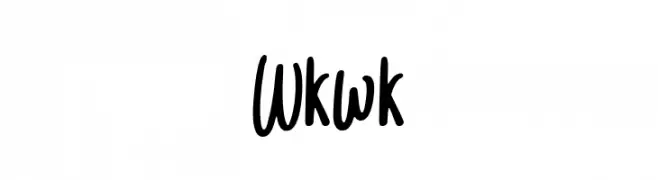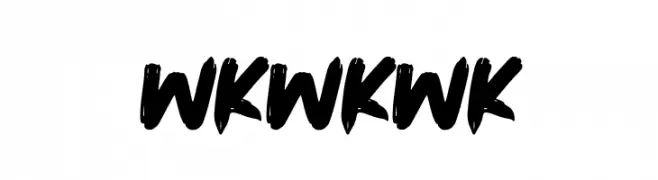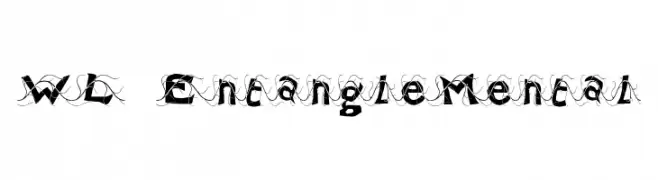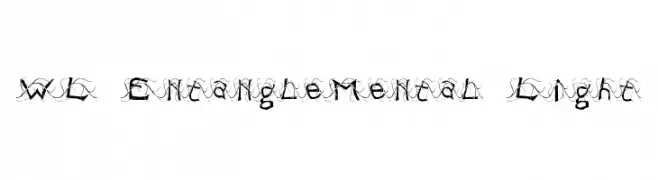
A decorative font with a whimsical and classic calligraphic style.
A playful, handwritten font with bold, rounded strokes and a casual style.
A bold, brush-style font with dynamic, hand-painted strokes.
A bold, angular font with a dynamic and edgy geometric design.
A bold, angular font with sharp, geometric edges and a dynamic appearance.
An artistic font with swirling, entangled lines creating a whimsical and decorative style.
An intricate, decorative font with swirling embellishments and artistic flair.
A bold, decorative font with butterfly motifs in uppercase and numbers.
Intricate butterfly and caterpillar dingbats for decorative use.
A decorative font with intricate butterfly and floral patterns in uppercase letters and numbers.